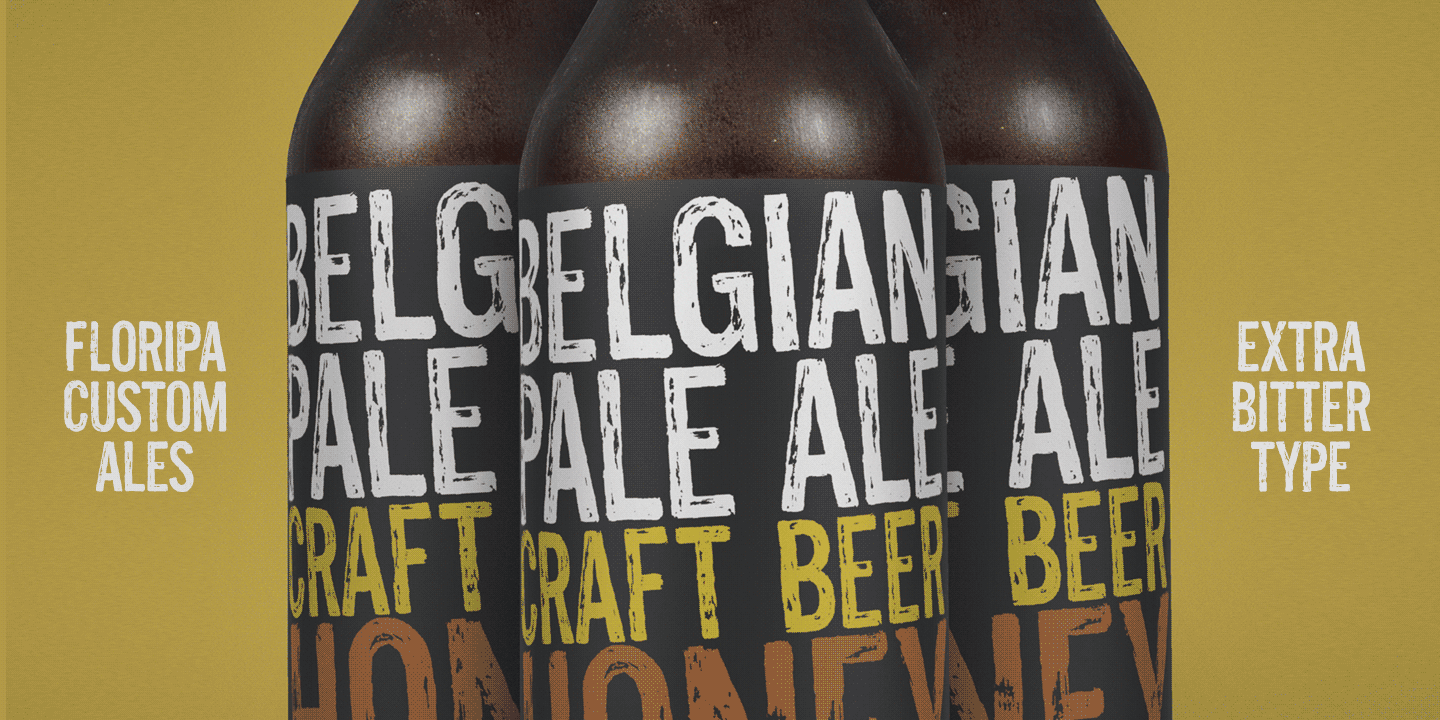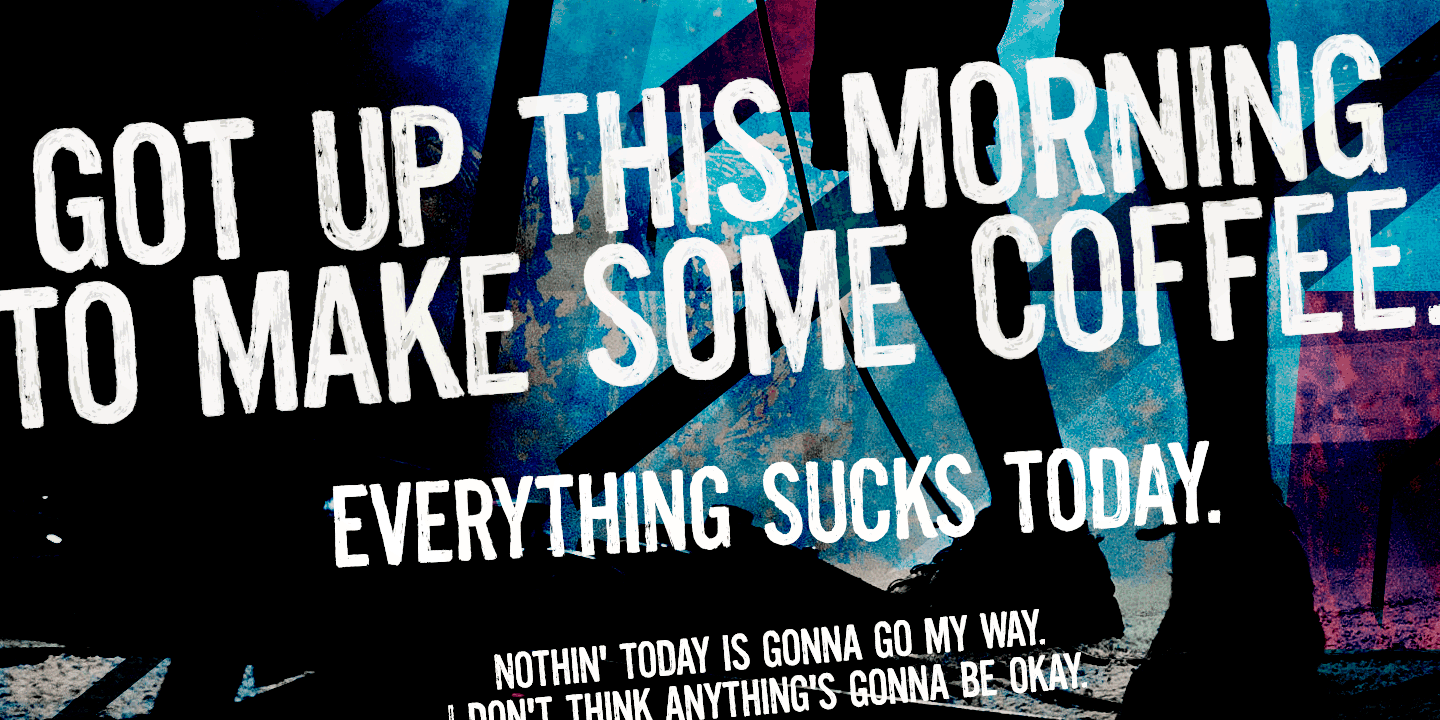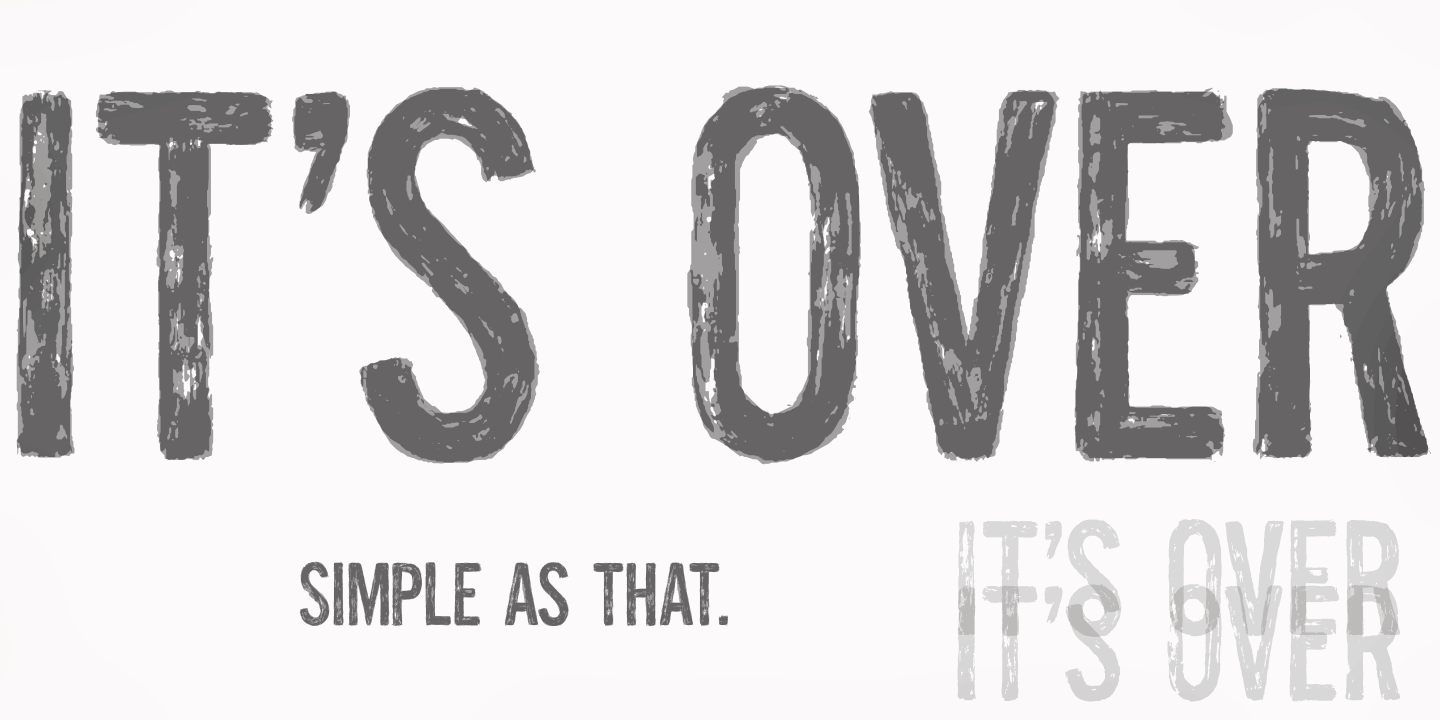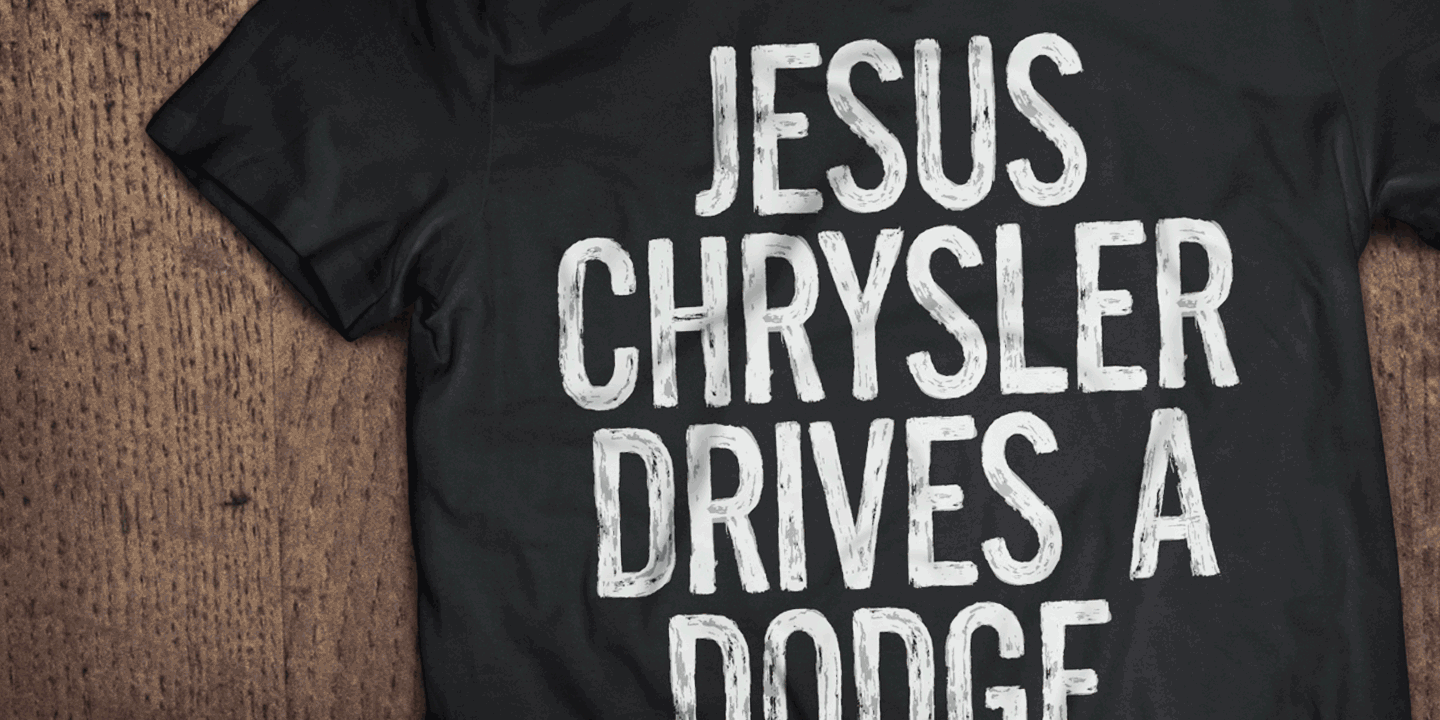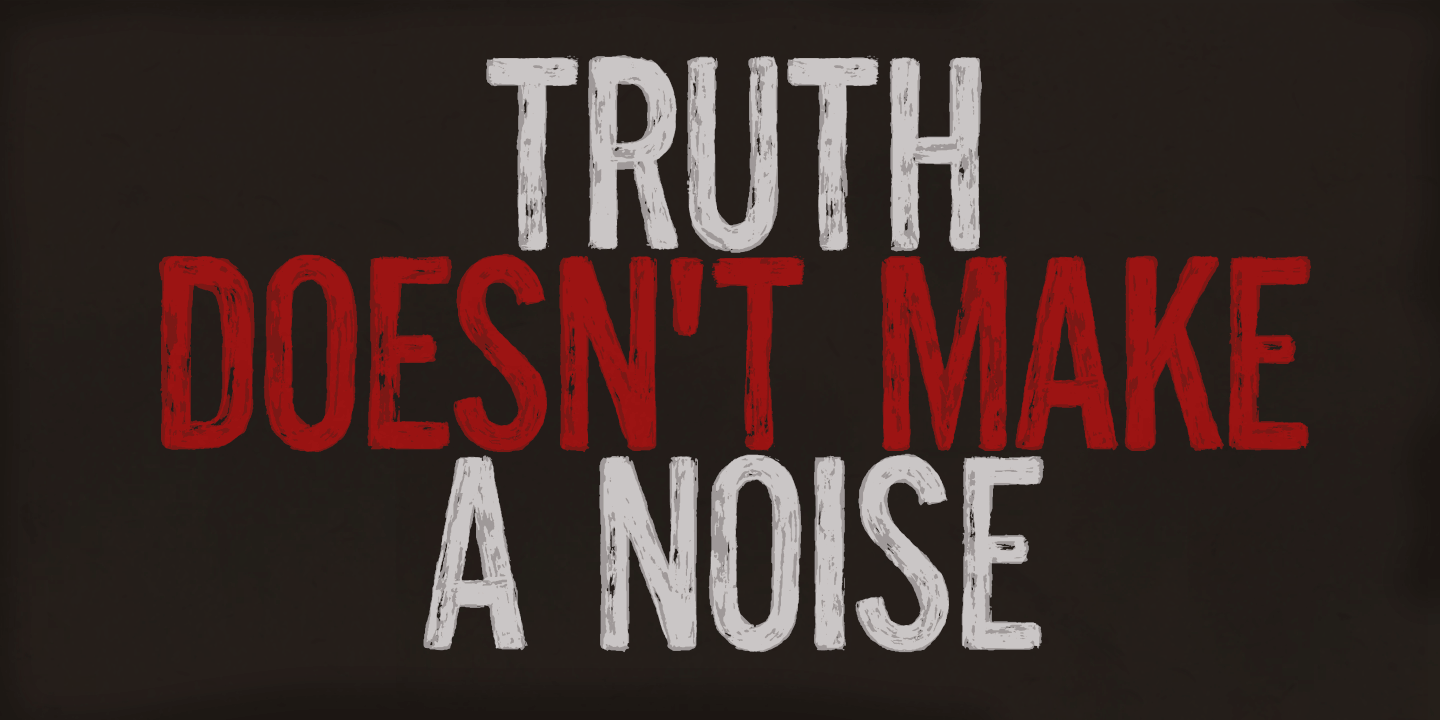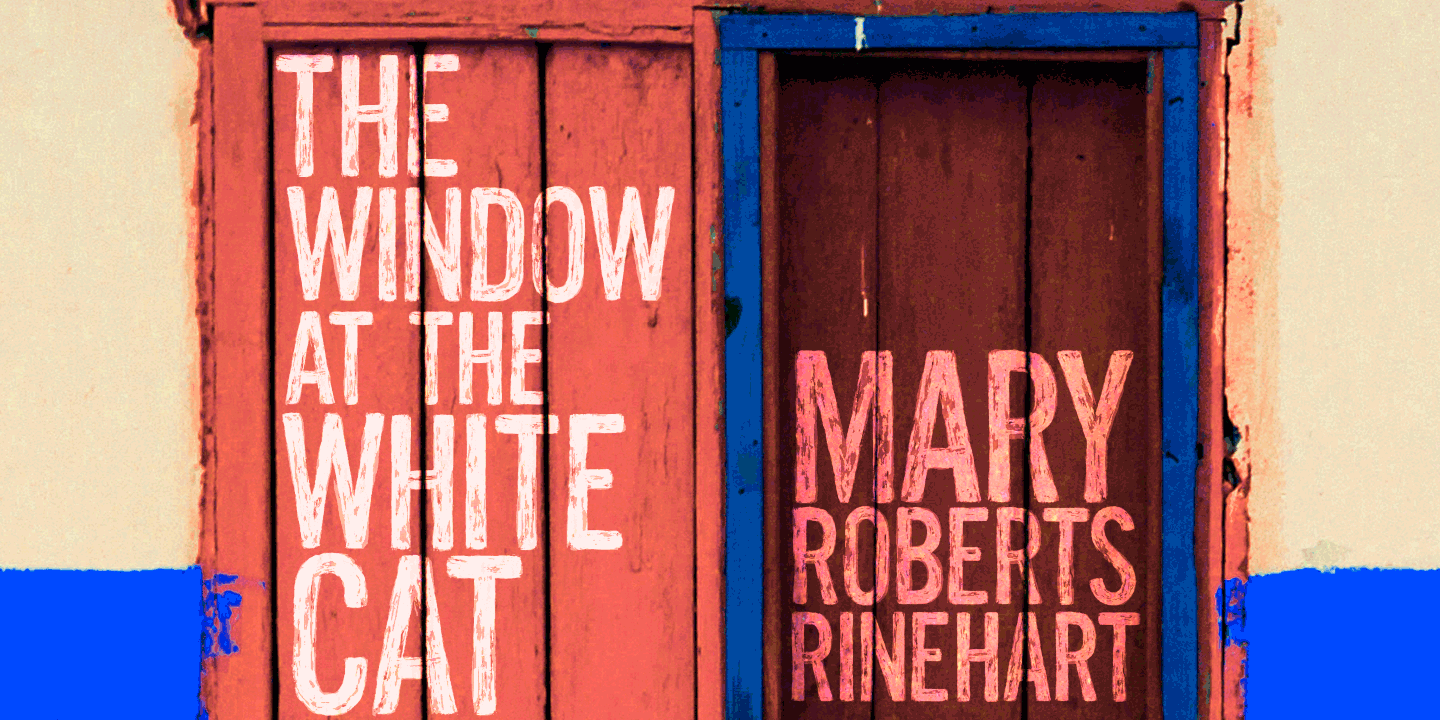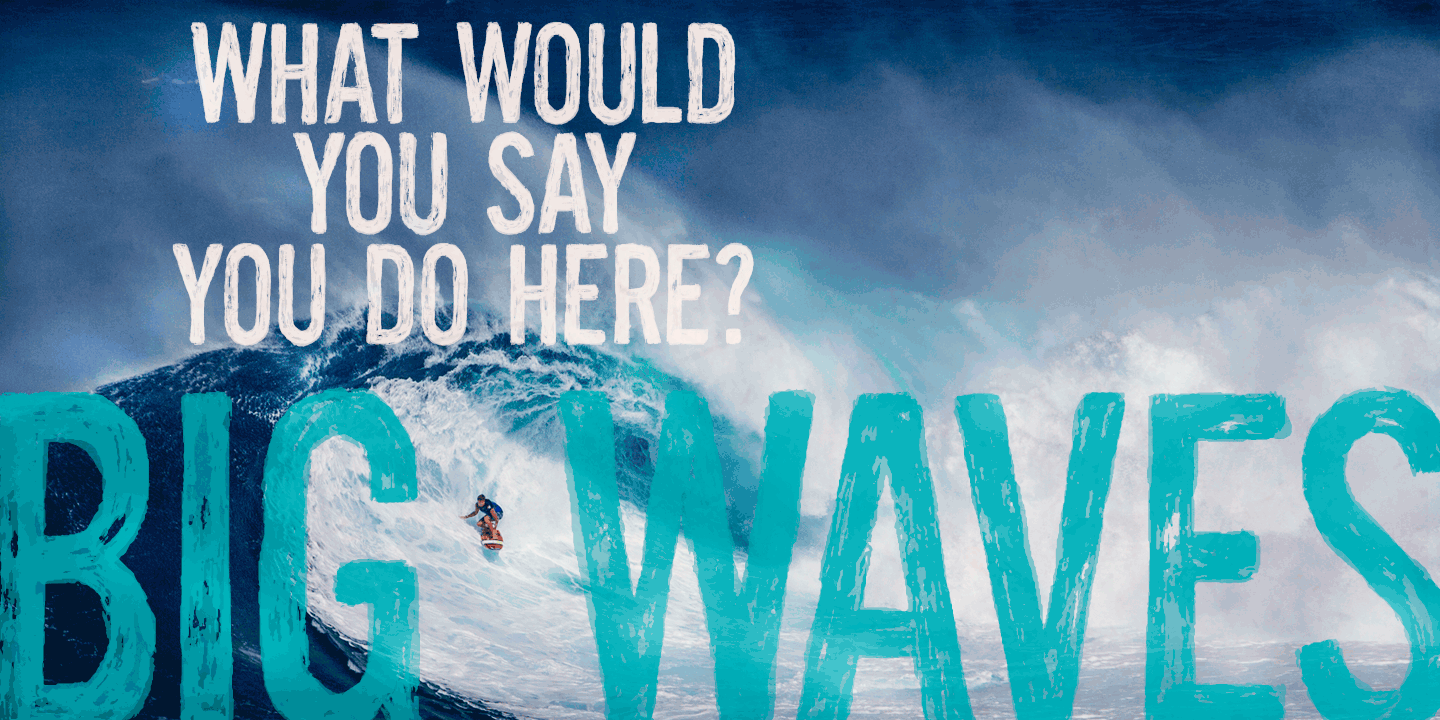
About Unboring Font Family Boring titles? Boring chunk of text? Unbore’em all!This nifty stackable family features two fonts, both with two options for each letter. Pile them up and play with opacities for a killer superposed effect.
Or use each alone if you prefer. Unboringness guaranteed either way. Cheers! Designers: Erica Jung, Ricardo MarcinPublisher: PintassilgoPrintsFoundry: PintassilgoPrintsDesign Owner: PintassilgoPrintsMyFonts debut: Sep 16, 2016 Unboring™ is a trademark of PintassilgoPrints.